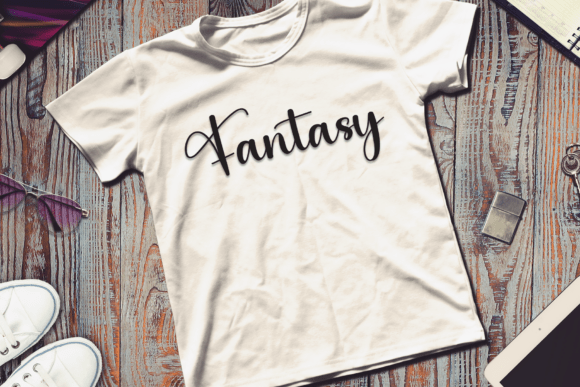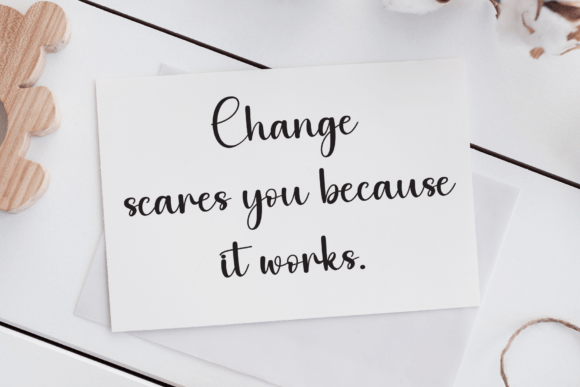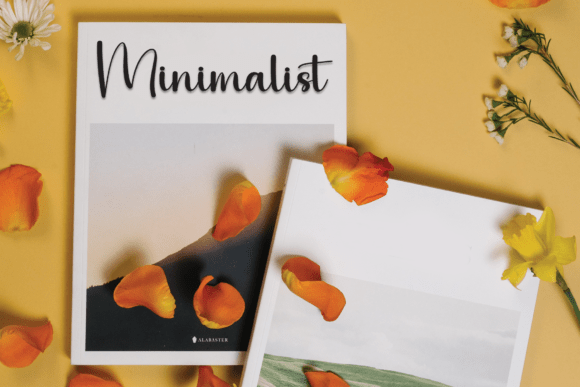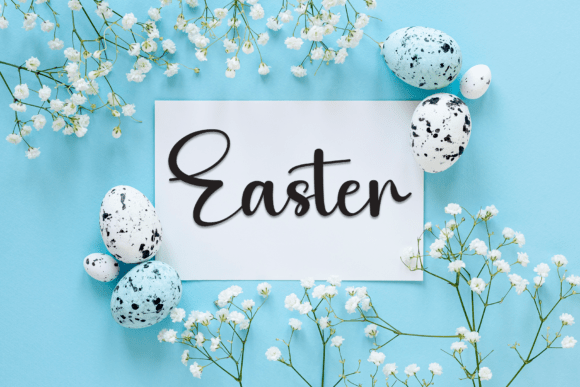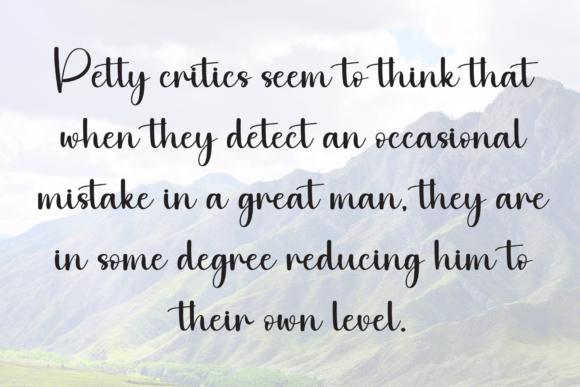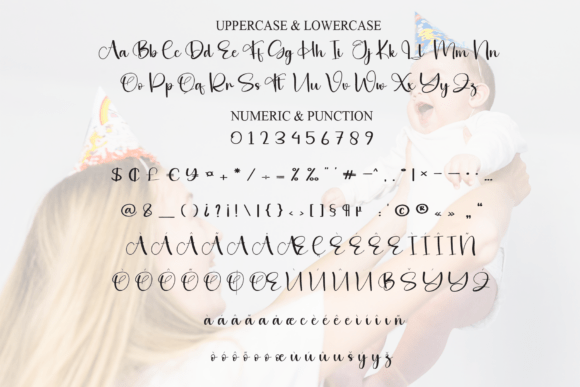
Babyday Font: Elevate Your Designs with a Touch of Whimsy
Are you a designer, crafter, or DIY enthusiast looking for a unique and creative way to add a personal touch to your projects? Look no further than the Babyday Font, a special and imaginative typeface that’s perfect for a wide range of applications. In this article, we’ll explore the features and benefits of this extraordinary font, and how it can help take your designs to the next level.
Unleash Your Creativity with Babyday Font
The Babyday Font is a carefully crafted typeface that’s designed to bring a touch of whimsy and charm to your designs. With its playful and artistic style, this font is ideal for a variety of projects, including wall displays, wedding invitations, social media post logos, advertisements, product packaging, product designs, labels, photography, watermarks, invitations, stationery, and more.
What Sets Babyday Font Apart
So, what makes the Babyday Font so special? Here are just a few of the key features that set it apart from other fonts on the market:
- Latest Style Letters: The Babyday Font features the latest style letters that are both modern and trendy, ensuring your designs look fresh and up-to-date.
The Babyday Font is an ideal choice for designers and crafters who want to add a personal touch to their projects. Whether you’re creating custom wedding invitations, designing a logo for a new business, or crafting a unique label for a product, this font is sure to impress. Its versatility and charm make it perfect for a wide range of applications, from digital designs to print materials.
Benefits of Using Babyday Font
By choosing the Babyday Font, you can enjoy a range of benefits, including:
- Unique and Creative Designs: The Babyday Font allows you to create unique and creative designs that stand out from the crowd.
- Professional-Looking Results: The font’s high-quality design and attention to detail ensure professional-looking results that impress.
In conclusion, the Babyday Font is a special and creative typeface that’s perfect for designers, crafters, and DIY enthusiasts who want to add a personal touch to their projects. With its unique style, ease of use, and compatibility with a range of design software, this font is sure to elevate your designs and help you achieve professional-looking results. So why not give it a try? Download the Babyday Font today and experience the difference for yourself.